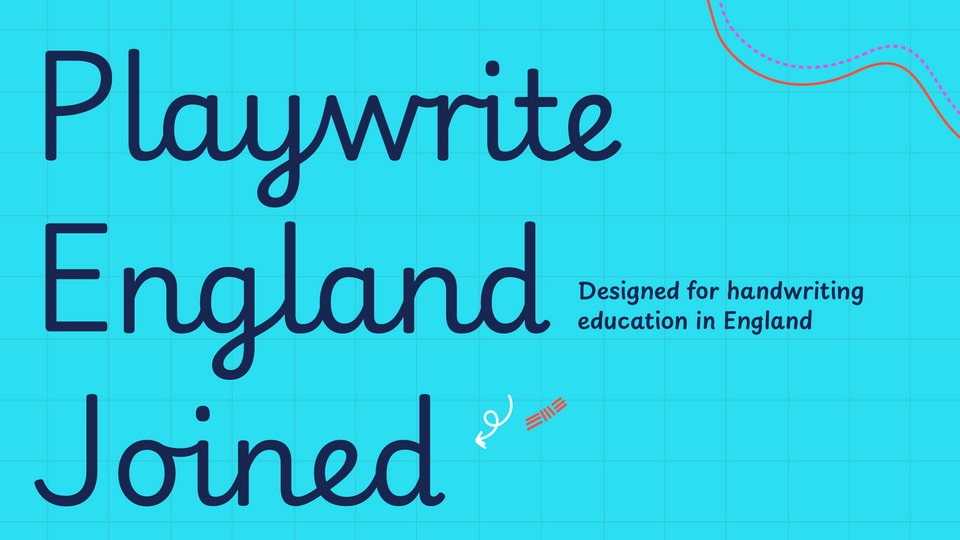
Download Playwrite England font, a typeface that allows the creation of primary school cursive fonts. England has been the incubator for several prominent handwriting styles that still influence teaching around the world.